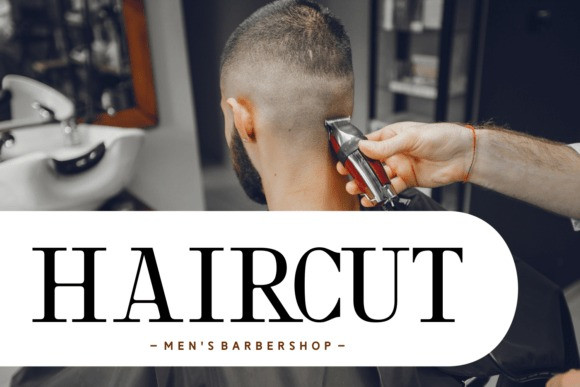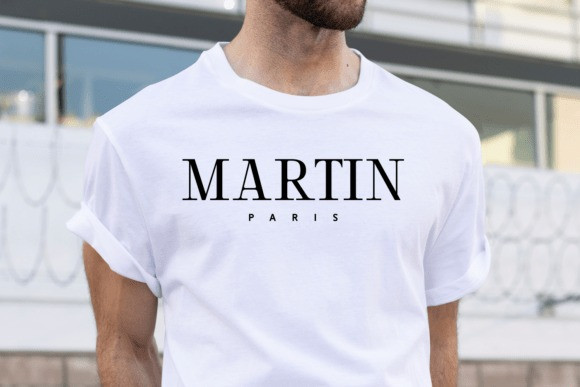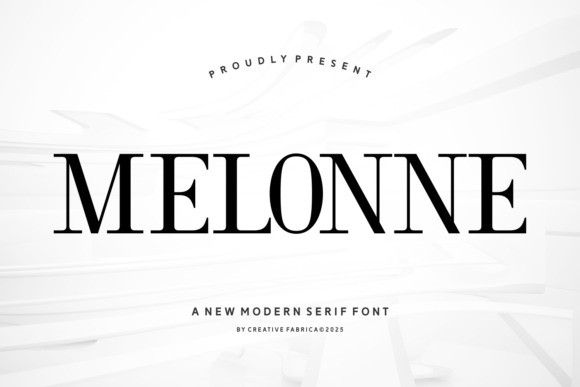
Melonne Font
Melonne Font, a new modern serif font by Creative Fabrica from the year 2025. The font itself is a high-contrast serif, exuding a timeless elegance perfect for high-fashion and professional branding.